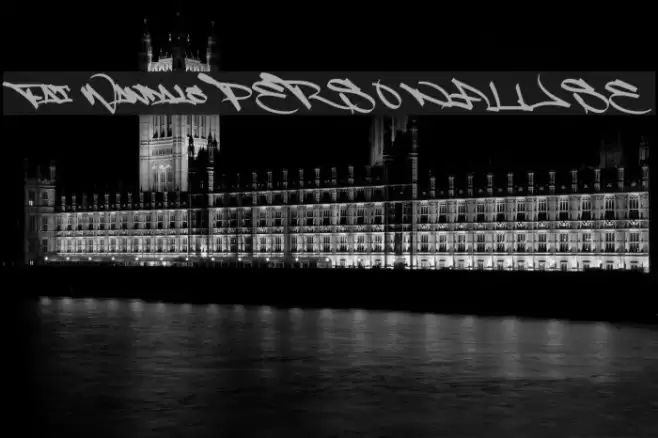
Fat Wandals PERSONAL USE Font
Fat Wandals PERSONAL USE Description
This font features a bold, graffiti-inspired style with a strong urban influence. The characters are highly stylized with exaggerated curves and sharp angles, giving them a dynamic and energetic appearance. The uppercase and lowercase letters are distinct yet maintain a cohesive aesthetic. The numbers and special characters follow the same artistic style, ensuring consistency across all glyphs. This font is designed to capture attention and convey a sense of rebellious creativity, making it ideal for projects that require a bold statement.
A bold, graffiti-inspired font with dynamic curves and sharp angles from Uncategorized fonts.
- Proposed Projects: Ideal for street art designs, urban-themed posters, music album covers, and edgy branding projects.
- Character Spacing: Tight
- Overall Style: Modern, Urban